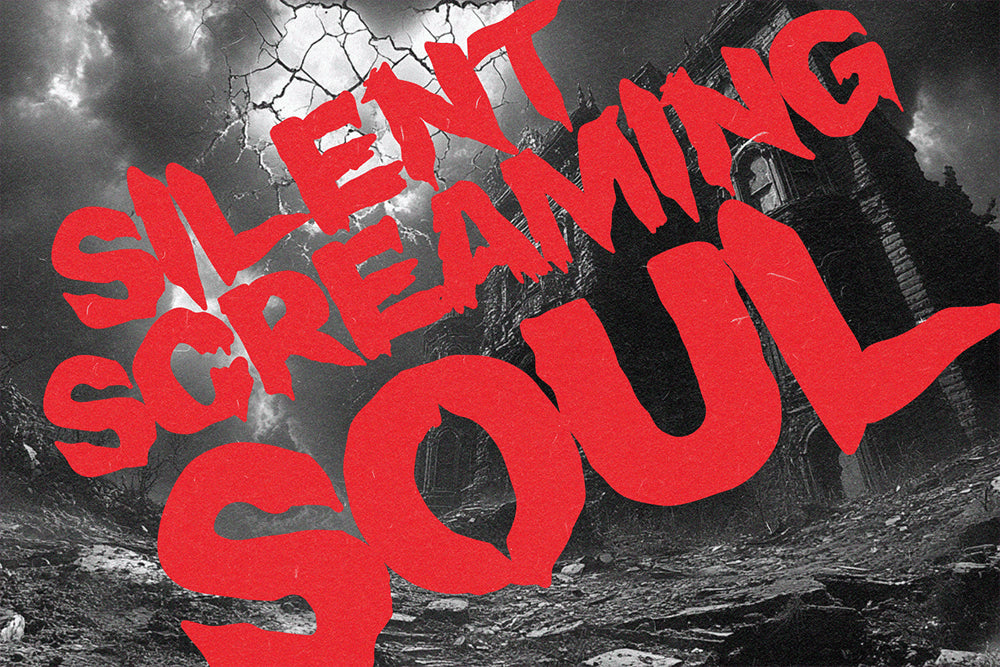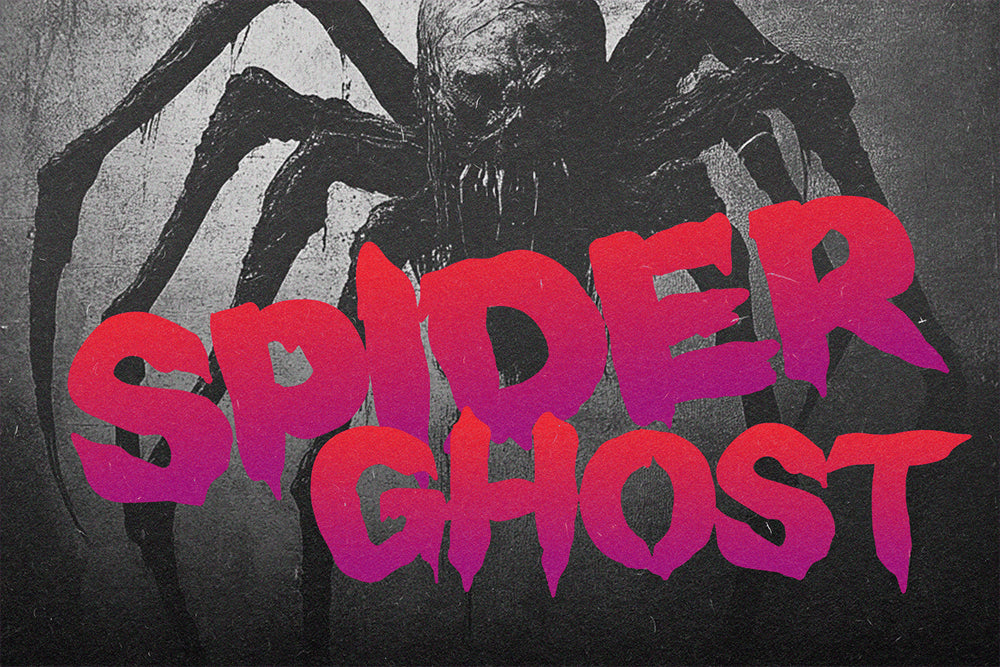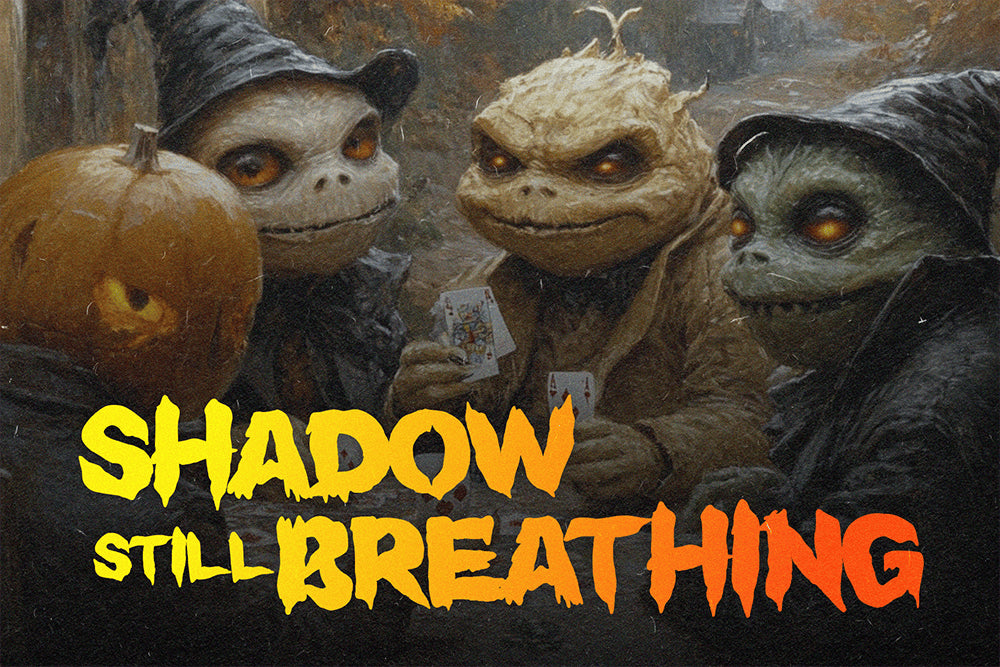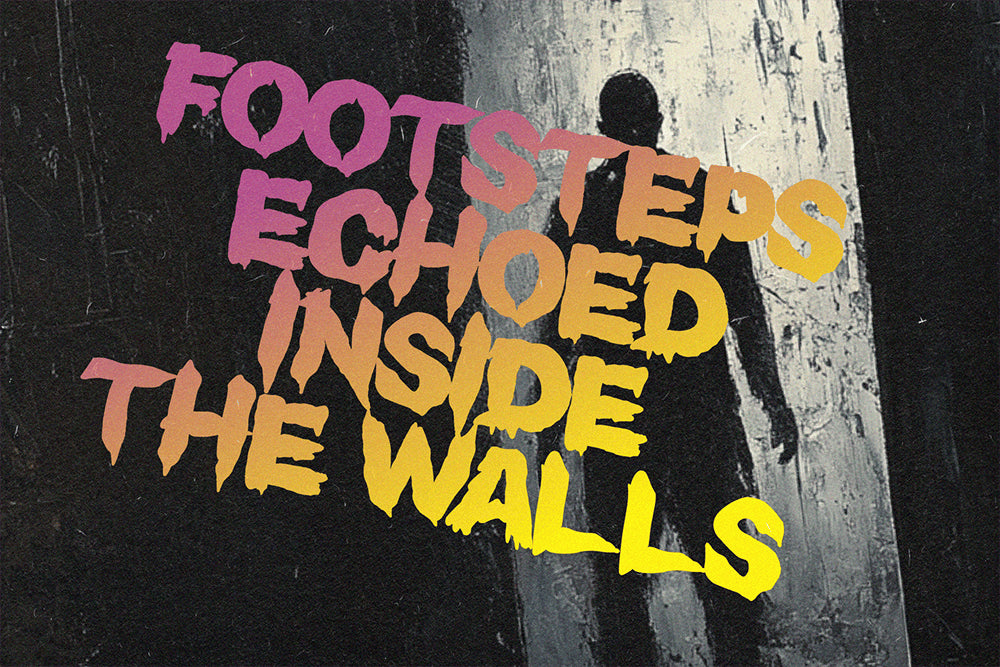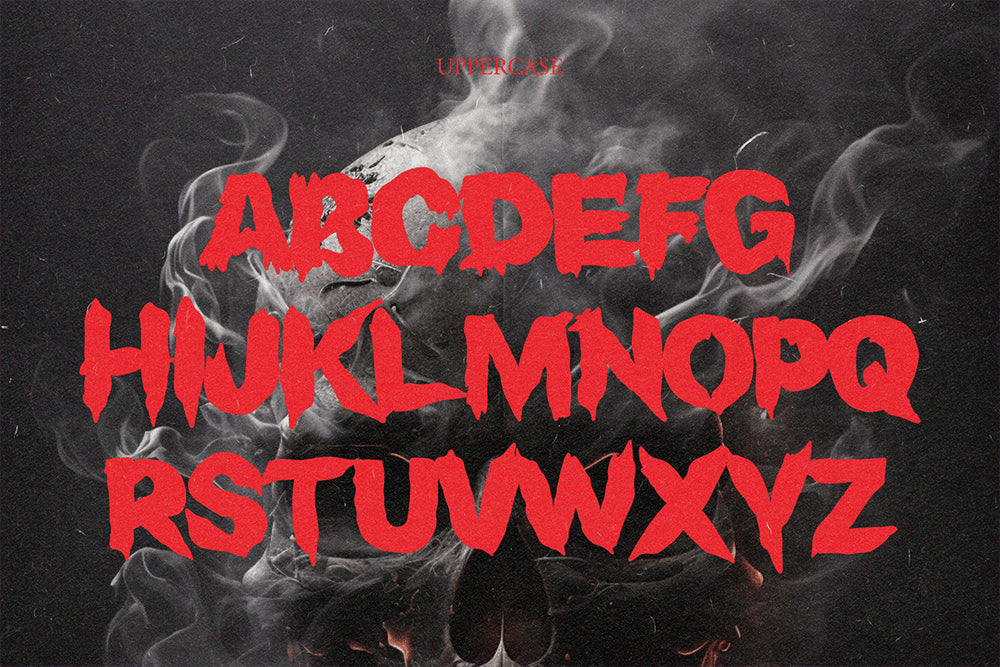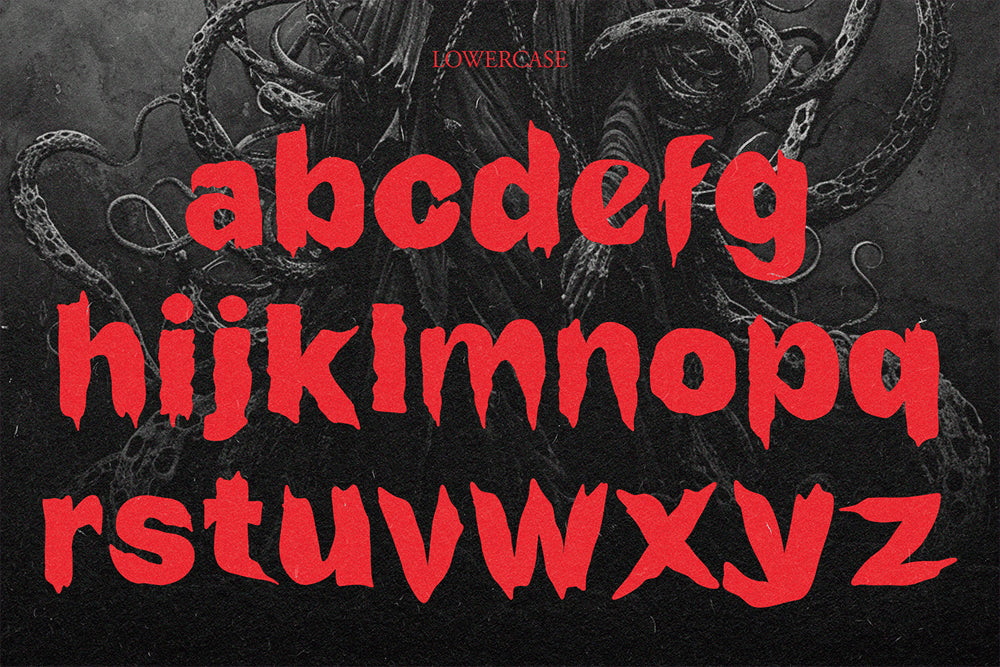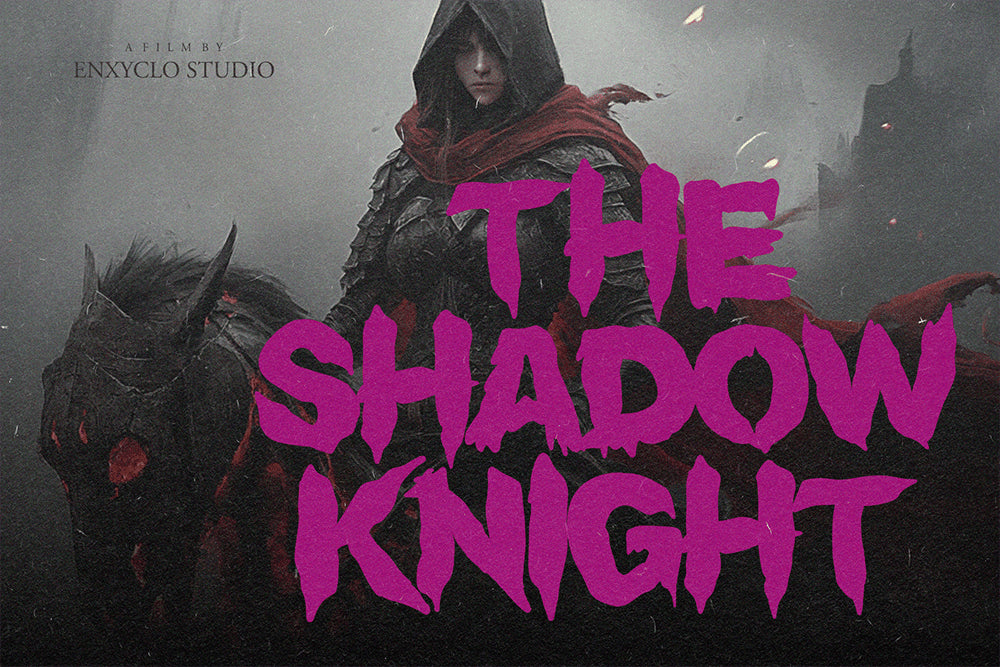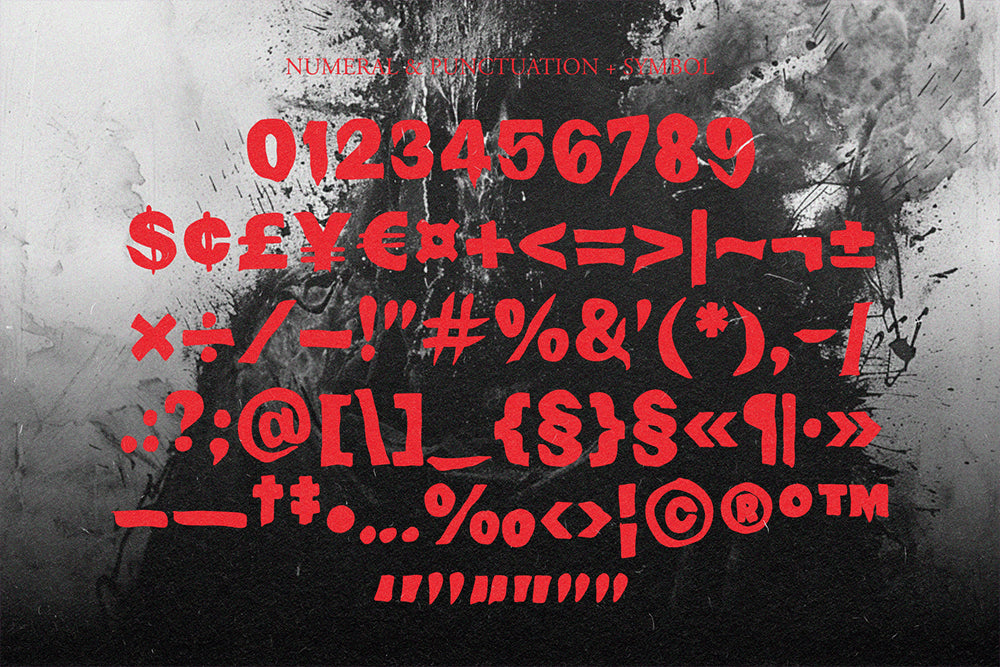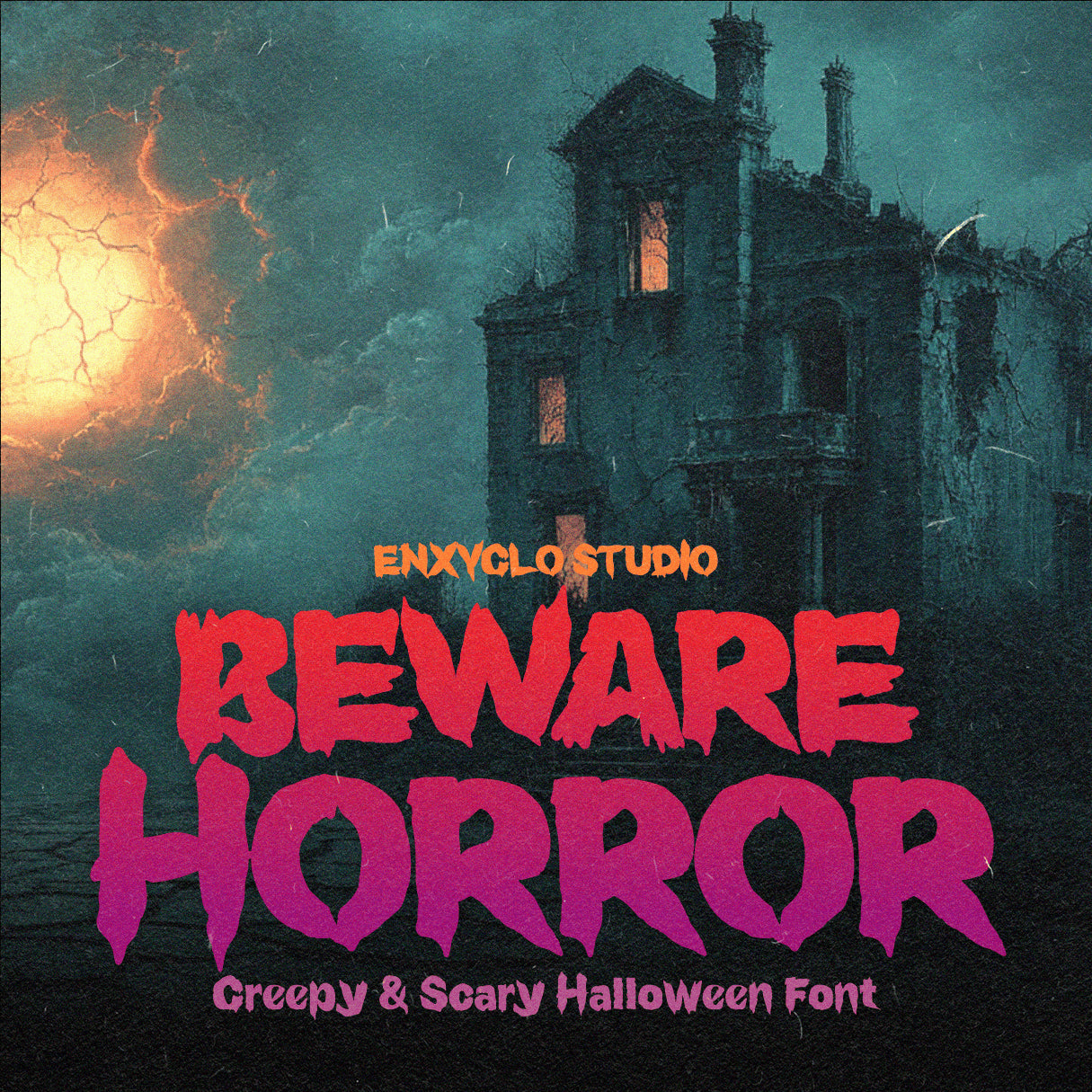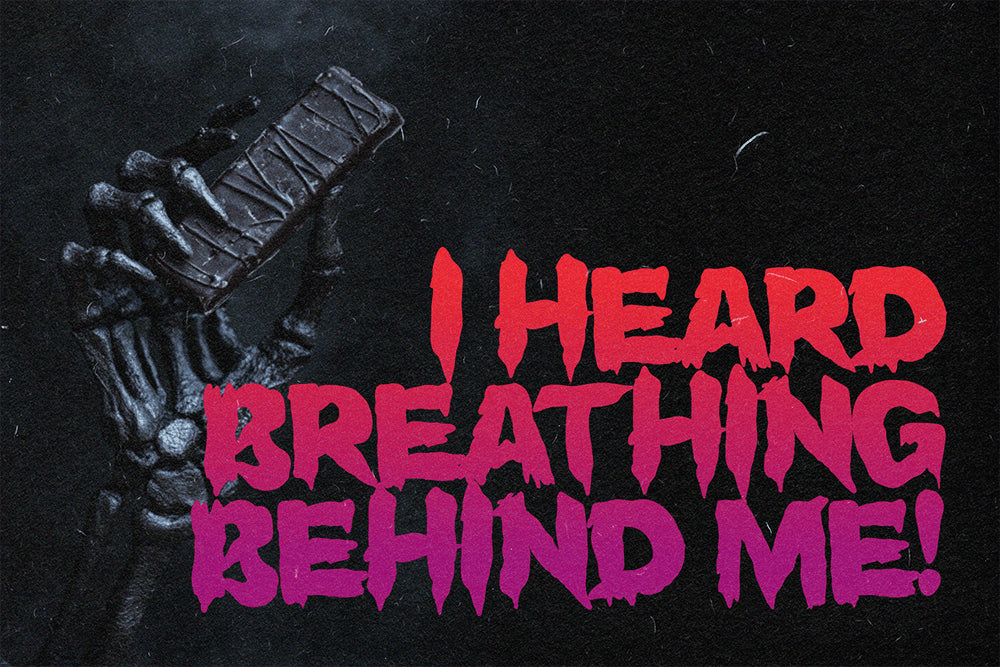
BEWARE HORROR — Creepy Scary Halloween Font
BEWARE HORROR is a bold display typeface designed to evoke a classic horror atmosphere, featuring unique letterforms that enhance any spooky project. It includes True Type Font (TTF), Open Type Font (OTF), and Web Open Format (WOFF1 & WOFF2) options, with uppercase and lowercase letters, numerals, punctuation, and symbols.